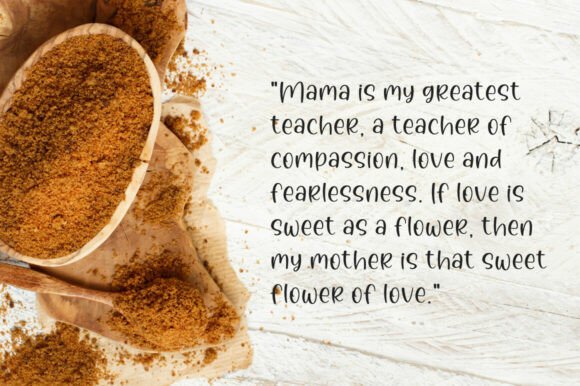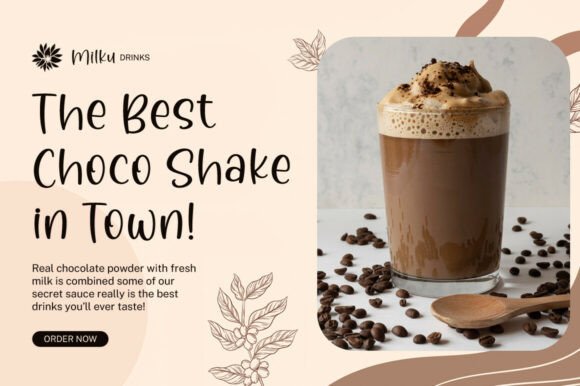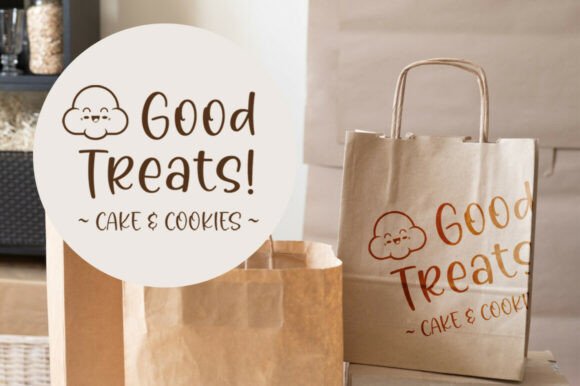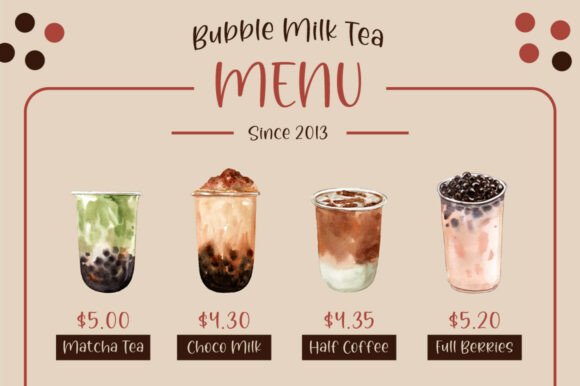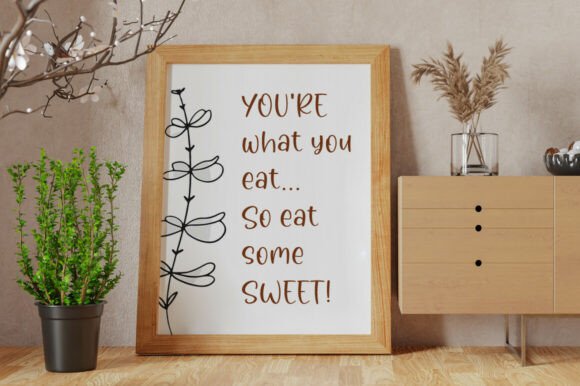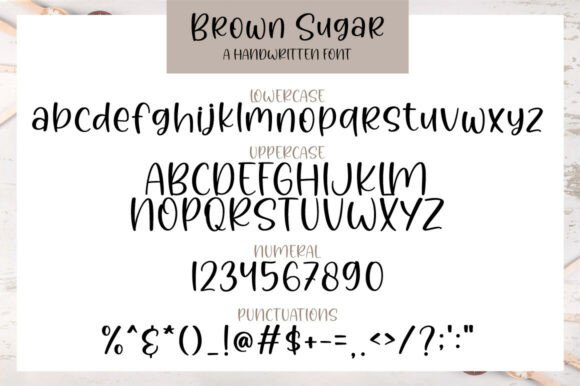
Discovering the Perfect Script: Brown Sugar Font
Do you remember the moment when you stumbled upon the perfect font that instantly elevates your design? For many of us, it’s a moment that sparks creativity and sets our imagination ablaze. I still recall the thrill of discovering Brown Sugar Font, a beautiful, well-balanced, and graceful script that has been a game-changer in my design journey.
Brown Sugar Font is a stunning addition to any designer’s toolkit, perfect for fashion branding or editorial designs that require a touch of elegance. With its smooth curves and sophisticated charm, this font is sure to make your designs stand out from the crowd. Whether you’re a seasoned designer or just starting out, Brown Sugar Font is an invaluable asset that will help you create visually stunning work.
Brown Sugar Font Key Features
- Font Family: Brown Sugar Font is a unique, hand-drawn script font designed to evoke a warm, nostalgic feel.
- Unique Characteristics: Brown Sugar Font features a distinctive, hand-painted look with subtle imperfections, giving it a charming, vintage feel.
Brown Sugar Font Review
As a designer, I’ve had the chance to work with the Brown Sugar Font, and I must say it’s a unique and charming addition to any design project. ✨ One thing that really stands out is its warm, inviting tone, which is perfect for creating a cozy atmosphere in any design. The font’s script-like flair adds a touch of personality, making it ideal for branding and marketing materials.
Here are some of the key features that make Brown Sugar Font shine:
- ✨ Unique and elegant script-like flair
- ✨ Warm, inviting tone
- ✨ Suitable for branding, marketing, and packaging designs
- ✨ High-resolution, making it perfect for print and digital use
- ⚠️ May not be suitable for formal or professional designs
- ⚠️ Can be a bit challenging to read in smaller font sizes
- ⚠️ Limited language support (not ideal for multilingual designs)
Overall, I’d say the Brown Sugar Font is a solid choice for designers looking to add some personality to their work. While it may not be perfect for every project, its unique charm and elegant flair make it a great addition to any design toolbox.
Tips for Getting the Most Out of Brown Sugar Font
The Brown Sugar font is perfect for:
- Creating a vintage or retro aesthetic.
- Designing for food or lifestyle brands.
- Adding a touch of warmth and personality to your designs.
Remember to pair the Brown Sugar font with complementary colors and fonts to achieve the desired effect.
Alternatives to Brown Sugar Font for Designers
Great Vibes is a beautiful, elegant script font that is perfect for creating a romantic and whimsical atmosphere. It is ideal for use in wedding invitations, branding, and packaging design. Great Vibes has a more refined and sophisticated look compared to Brown Sugar Font, which makes it suitable for high-end and luxury brands.
Comparison: Great Vibes is more cursive and less playful than Brown Sugar Font, making it a better choice for elegant and sophisticated designs.
Pacifico is a modern script font that is perfect for creating a relaxed and casual atmosphere. It is ideal for use in branding, packaging design, and advertising. Pacifico has a more laid-back and friendly look compared to Brown Sugar Font, which makes it suitable for outdoor and summer-related brands.